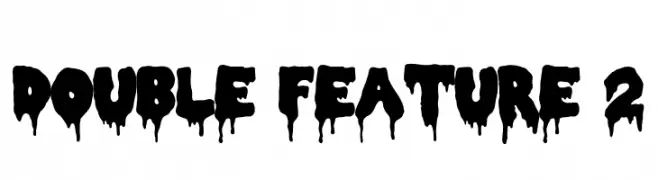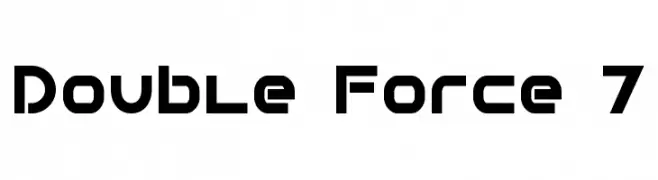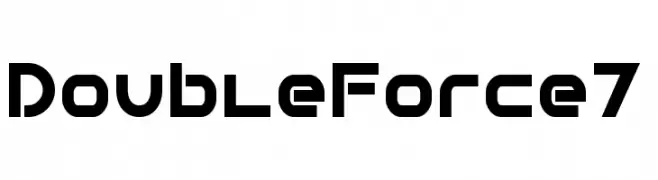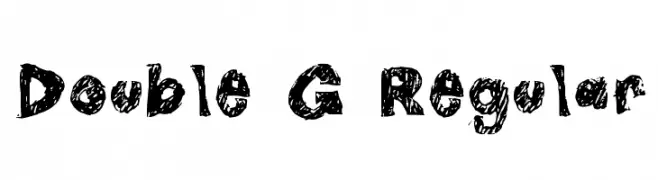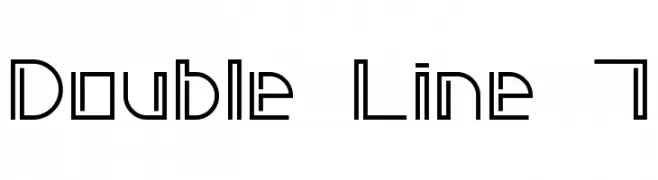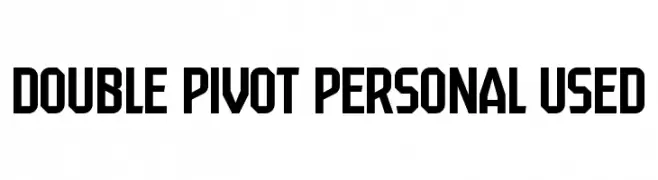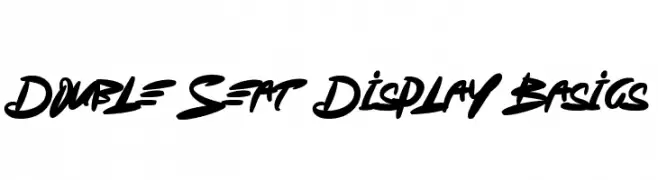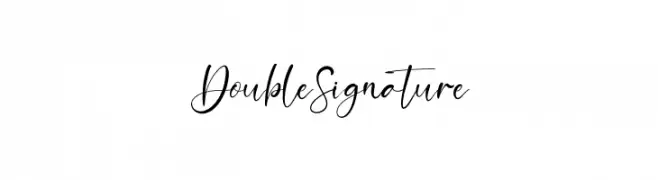
A bold, dripping font with a spooky, horror-themed aesthetic.
A bold, geometric font with a futuristic and modern design.
A bold, textured, hand-drawn font with a playful and artistic style.
An elegant script font with ornate, flowing letterforms and decorative swashes.
A modern, double-line font with a geometric and futuristic style.
A bold, geometric font with sharp angles and a modern, assertive style.
A pixelated, retro-style font with a blocky, 8-bit aesthetic.
A bold, energetic script font with a dynamic, handwritten style.
A graceful, cursive script font with elegant, flowing strokes.